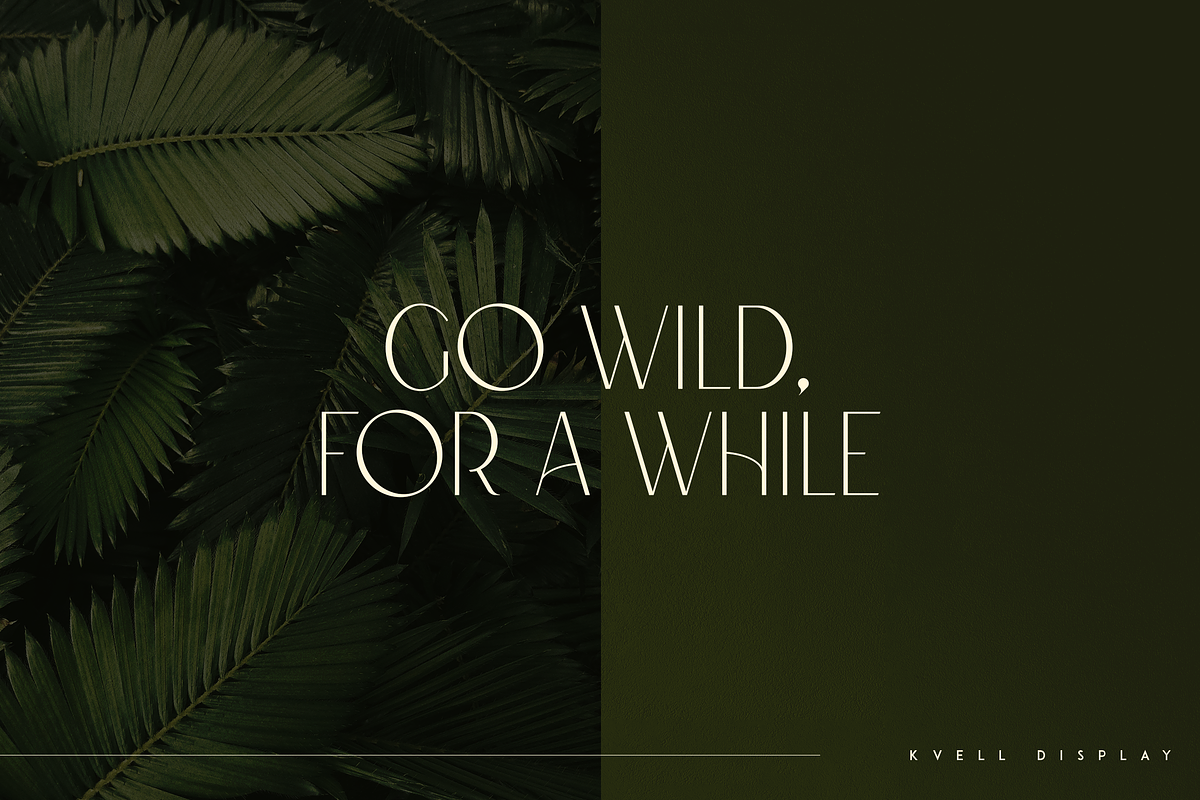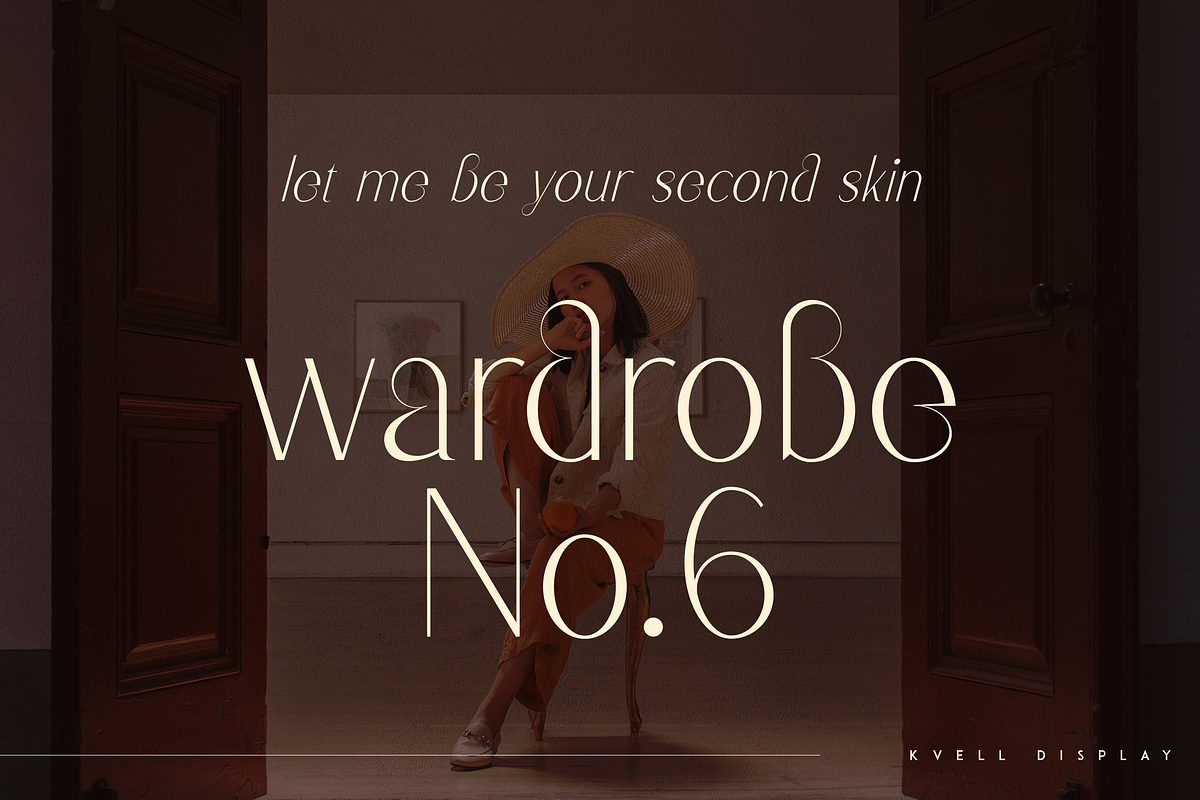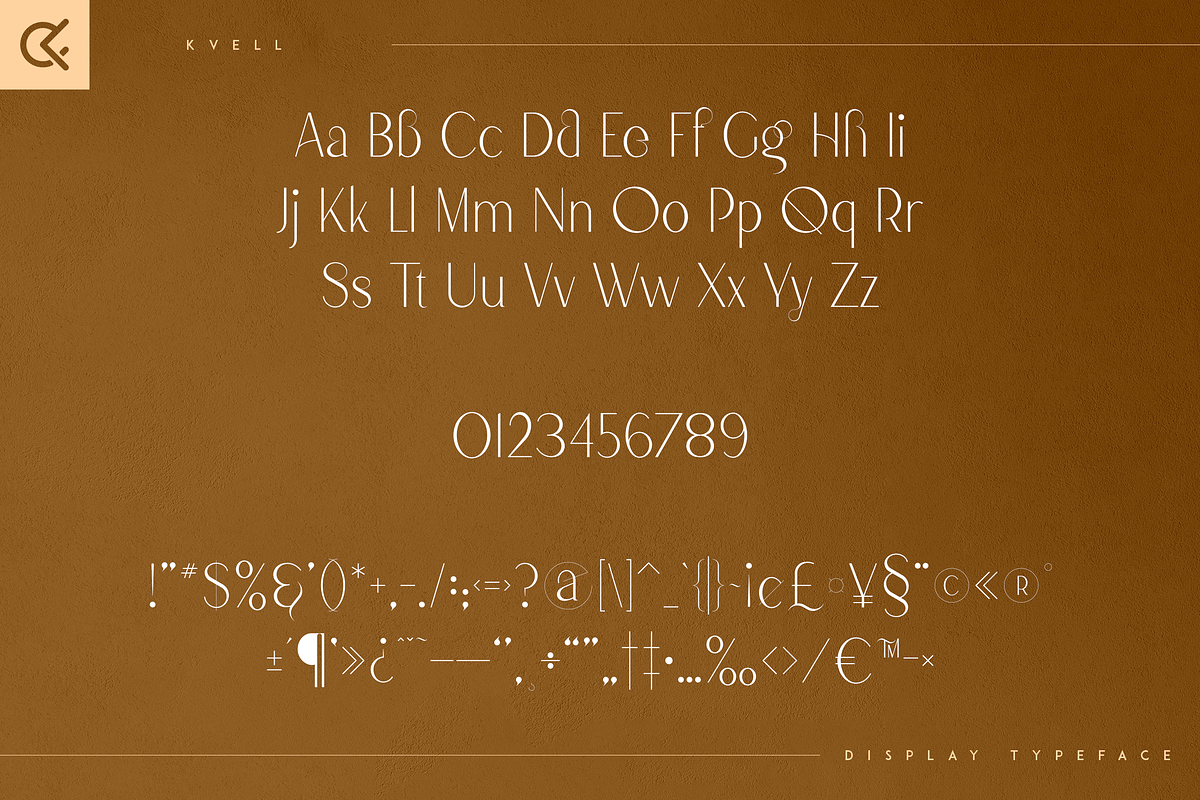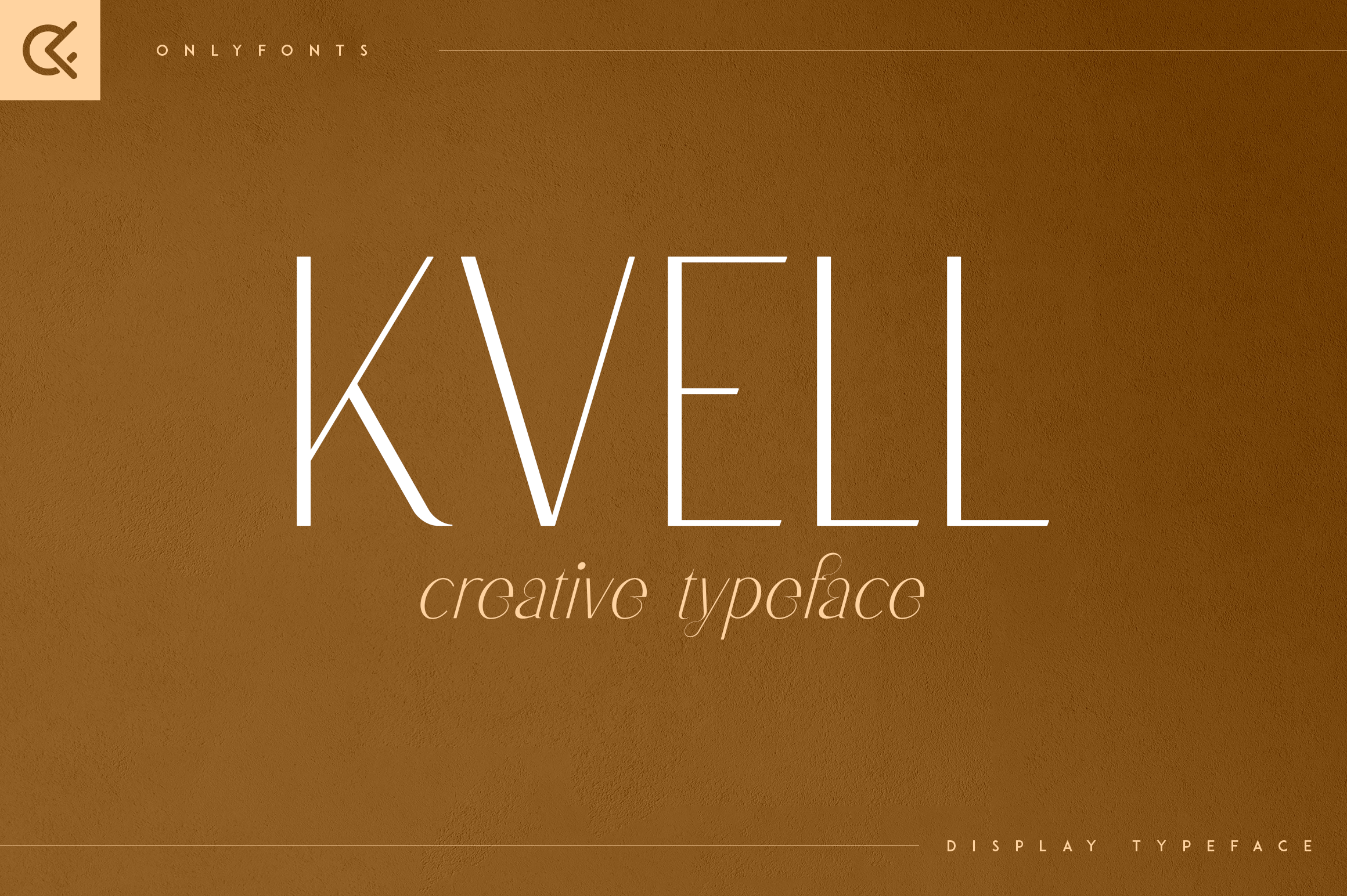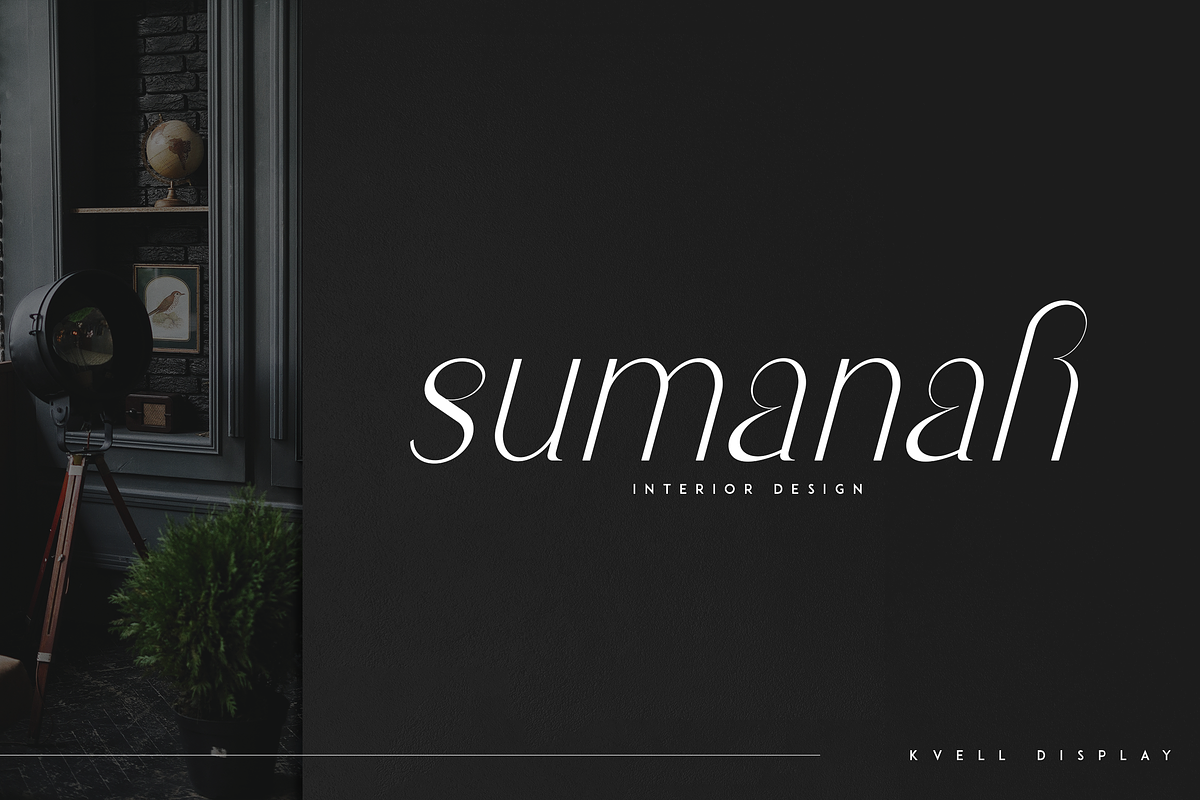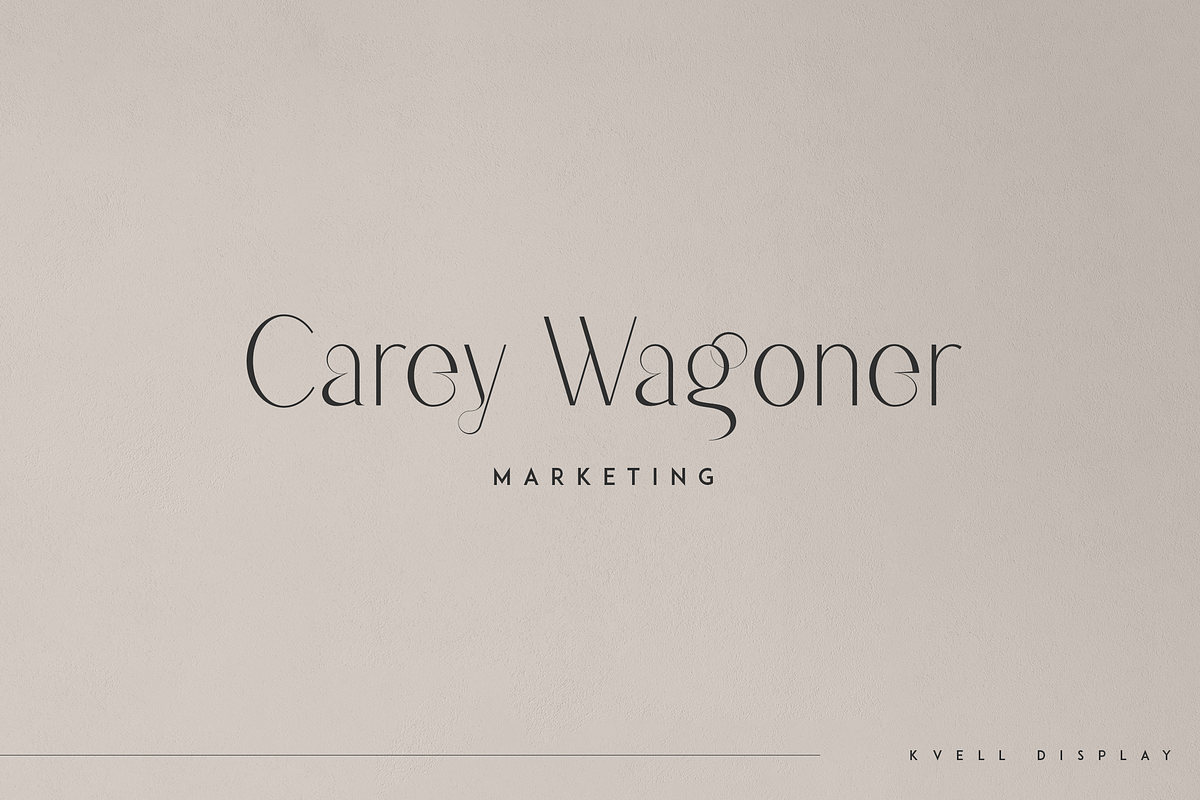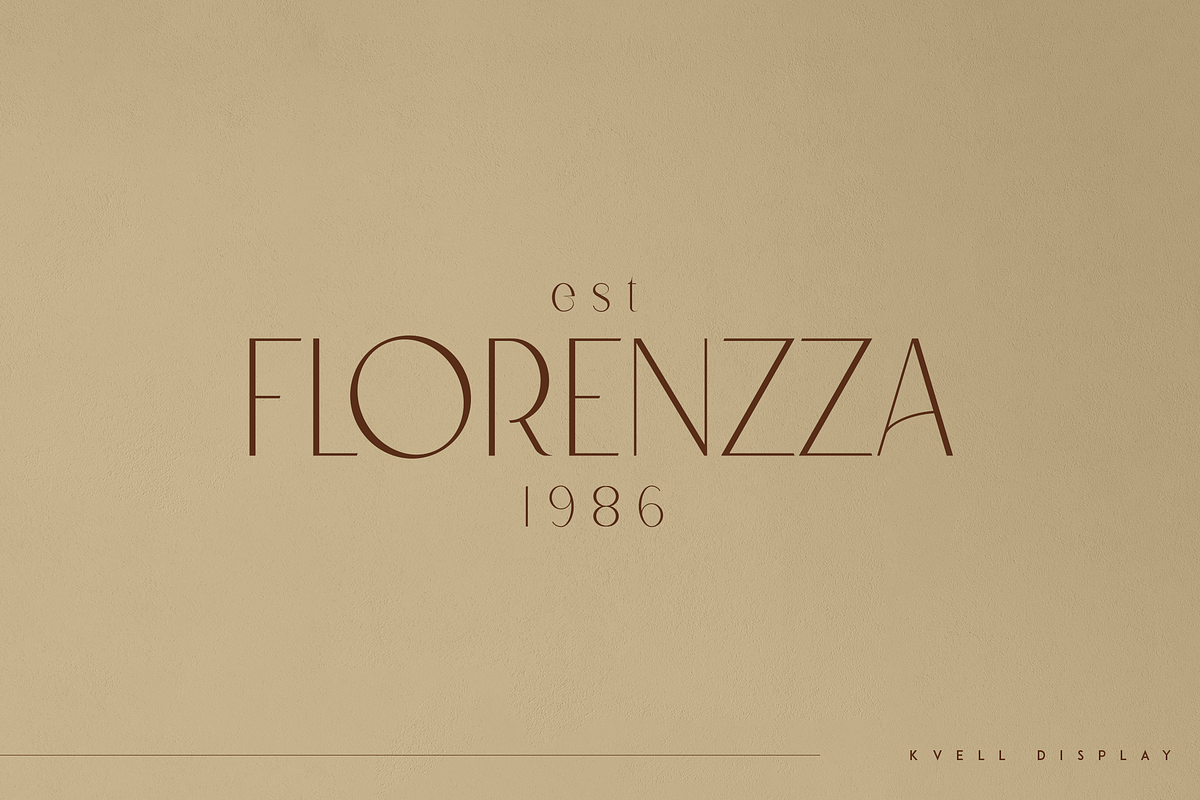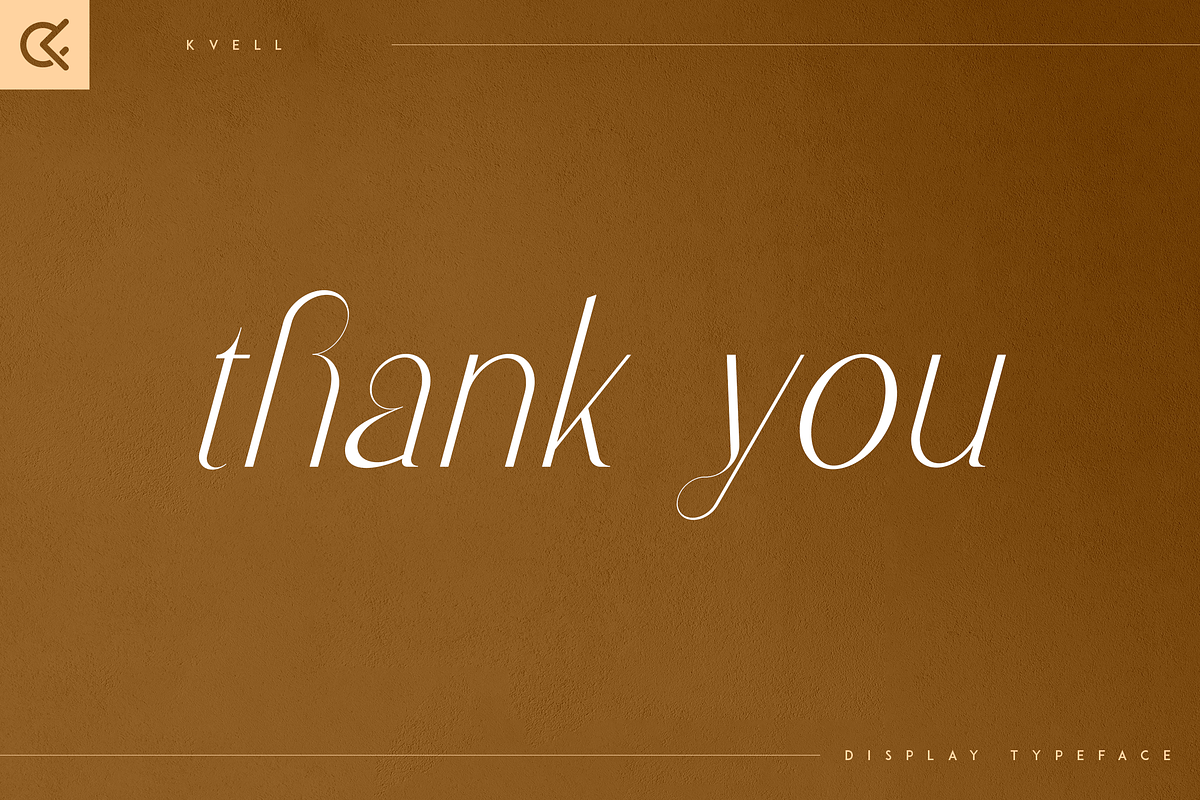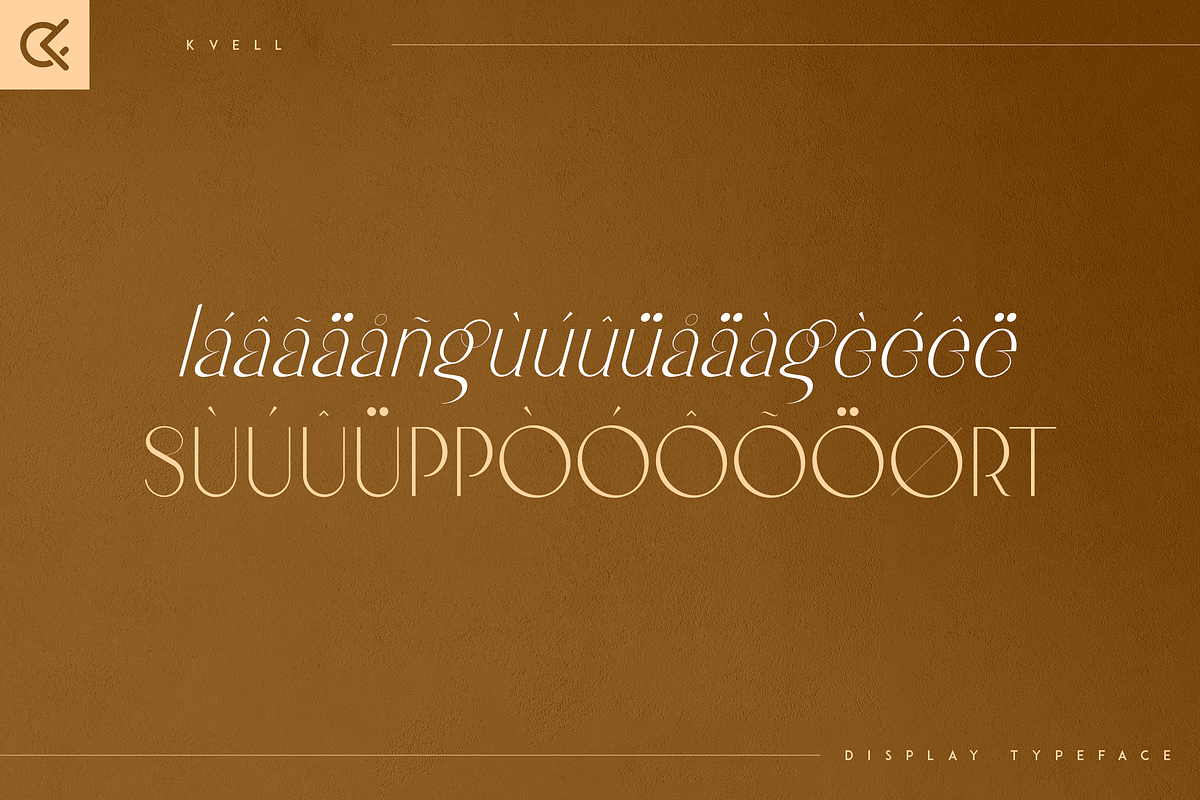
Kvell - elegant display typeface
Introducing Kvell - elegant display typeface
Kvell is luxury and tall font with multilingual support. It's a very versatile font that works great in large and small sizes.
Kvell is perfect for branding projects, home-ware designs, product packaging, magazine headers - or simply as a stylish text overlay to any background image.
- Uppercase, lowercase, numeral, punctuation & Symbol
- Italic